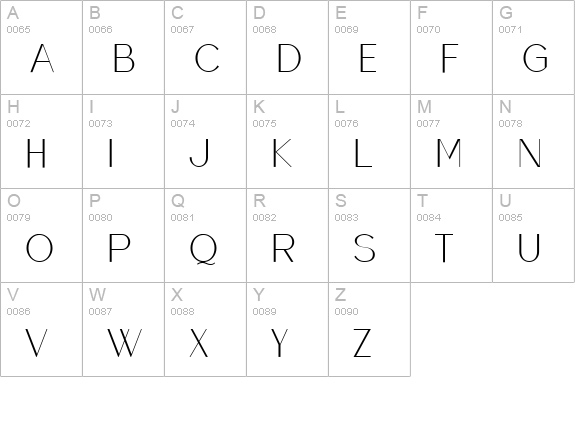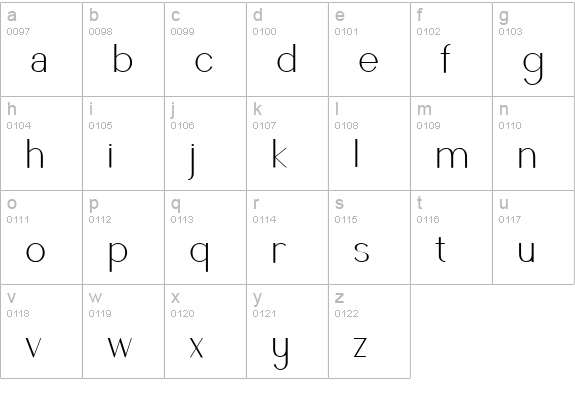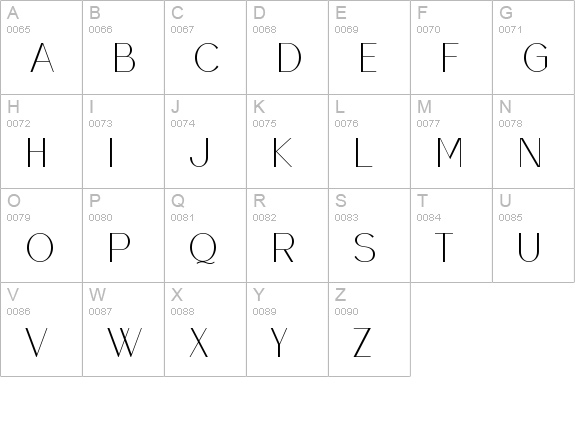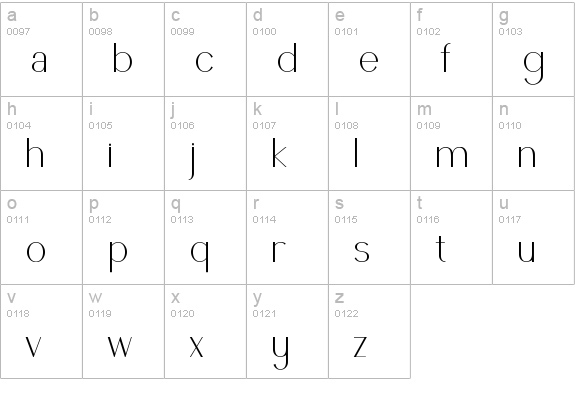
Raccosetta is a demo font in the General > Sans-Serif category, designed by patria_typestudio. It has been downloaded 393 times and is available for Windows, Mac and Linux.
Raccosetta font is a modern and stylish typeface that exudes elegance and sophistication. With its sleek lines and graceful curves, this font is perfect for adding a touch of class to any design project. Whether you're creating a wedding invitation, a business card, or a website, Raccosetta font will elevate your design to the next level.
With its versatility and beauty, Raccosetta font is sure to become a staple in your design toolkit. Download it now and see for yourself the impact that this exquisite font can have on your creations.